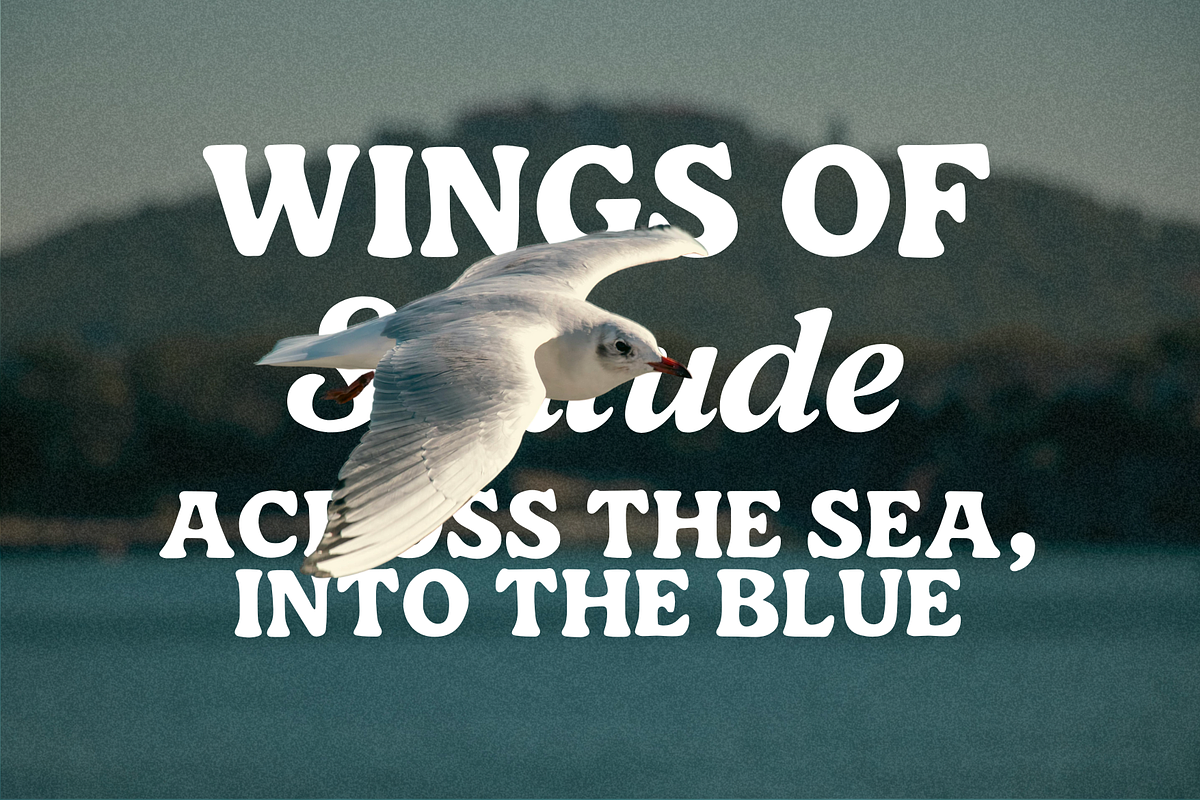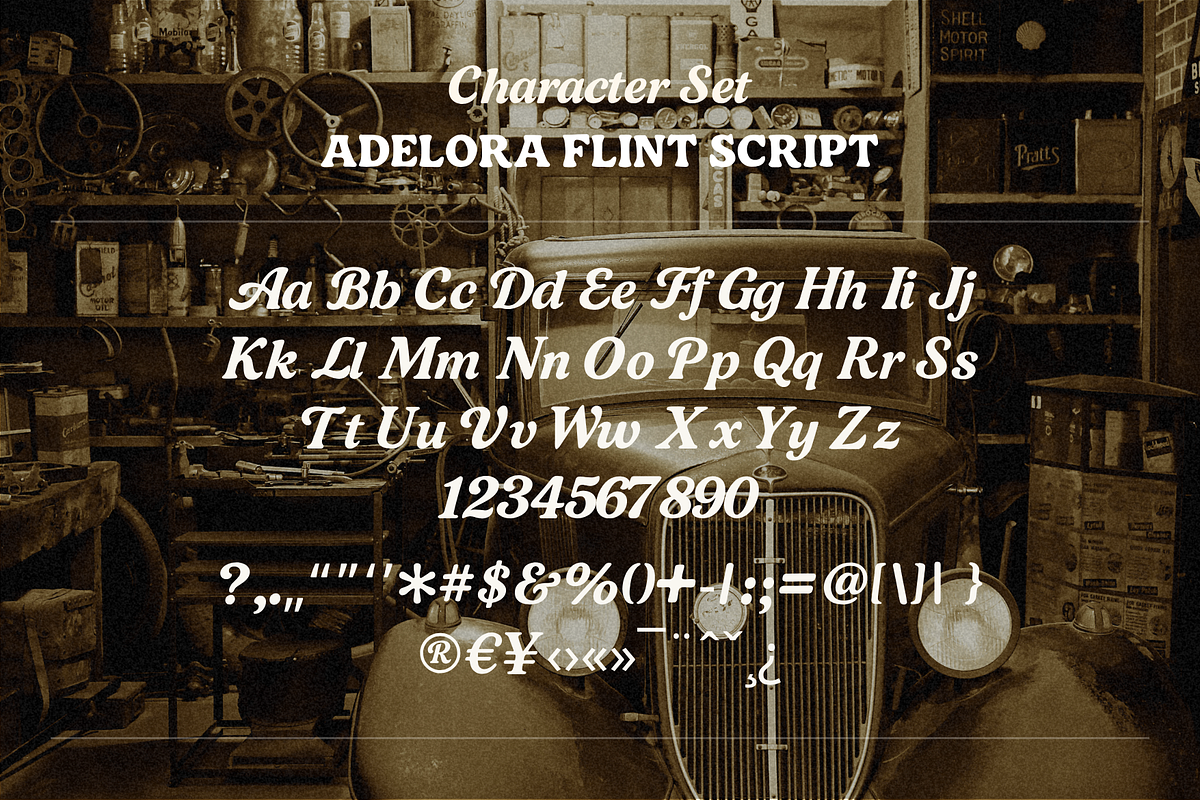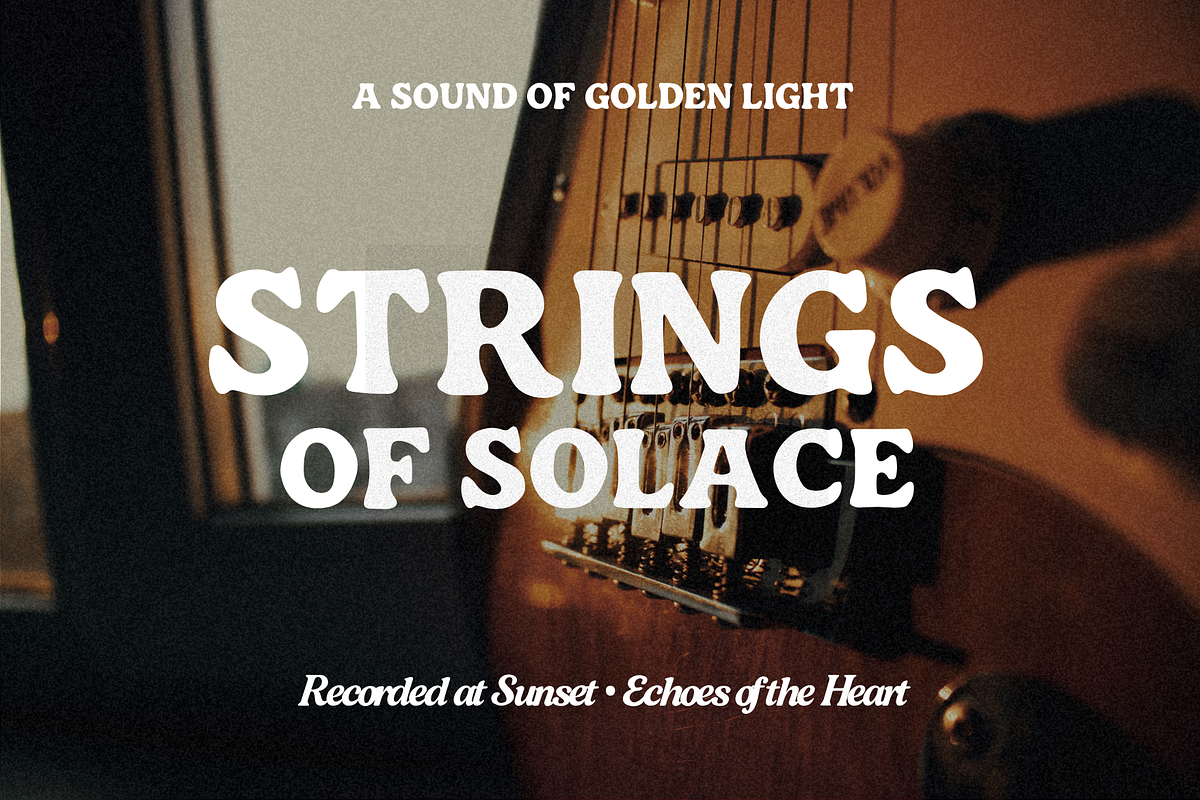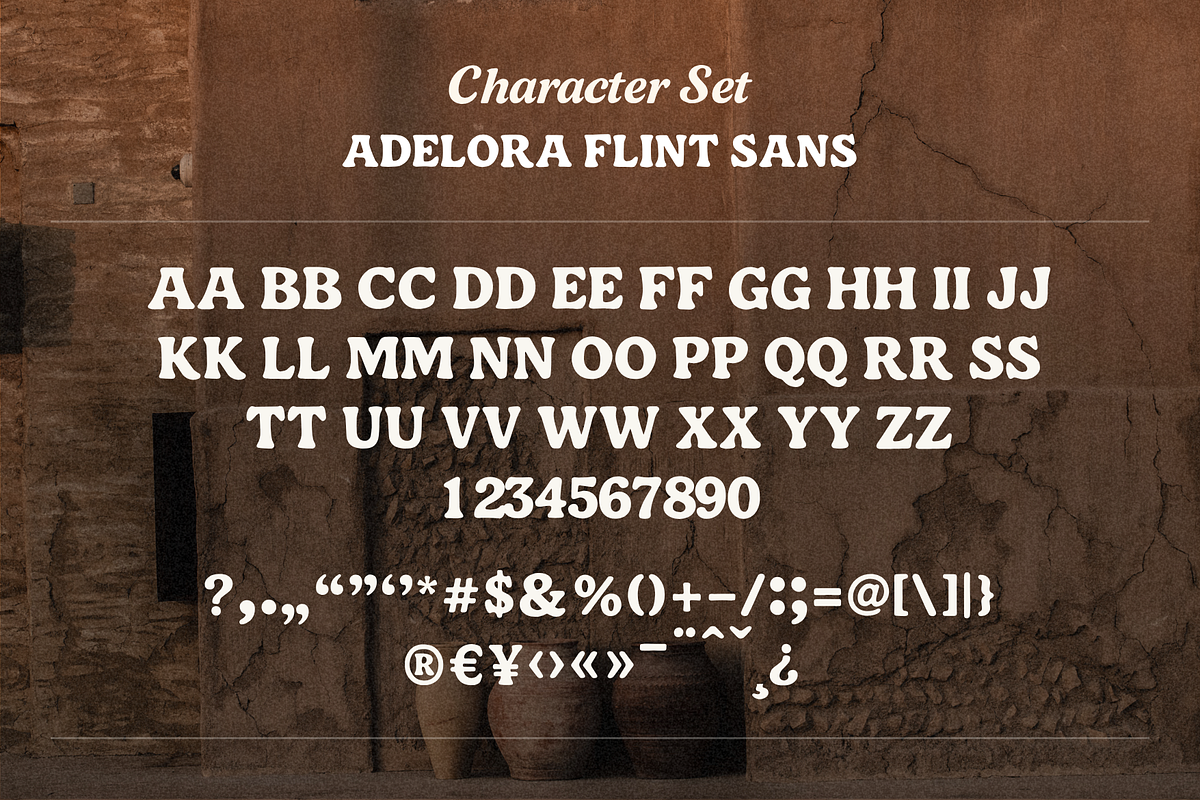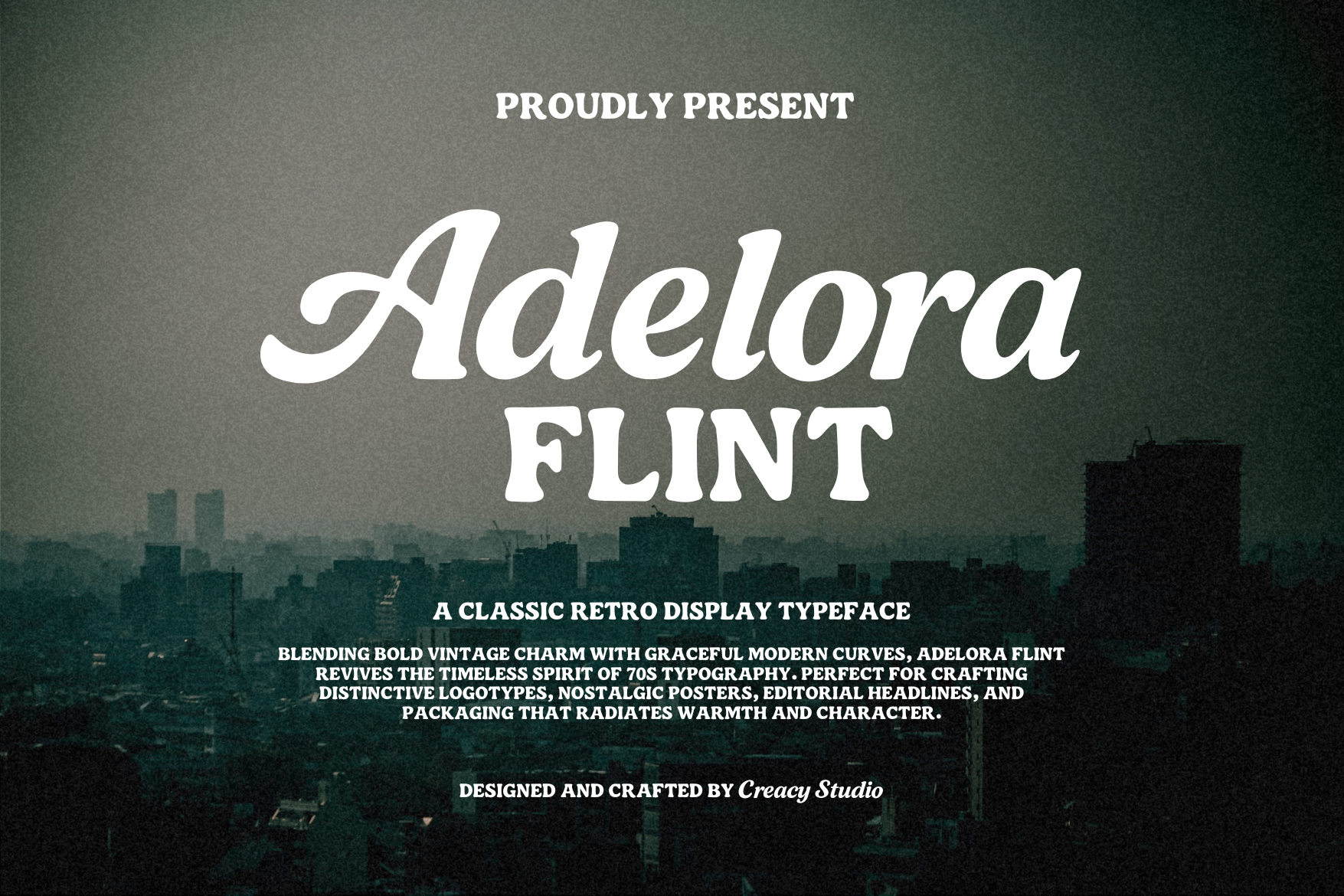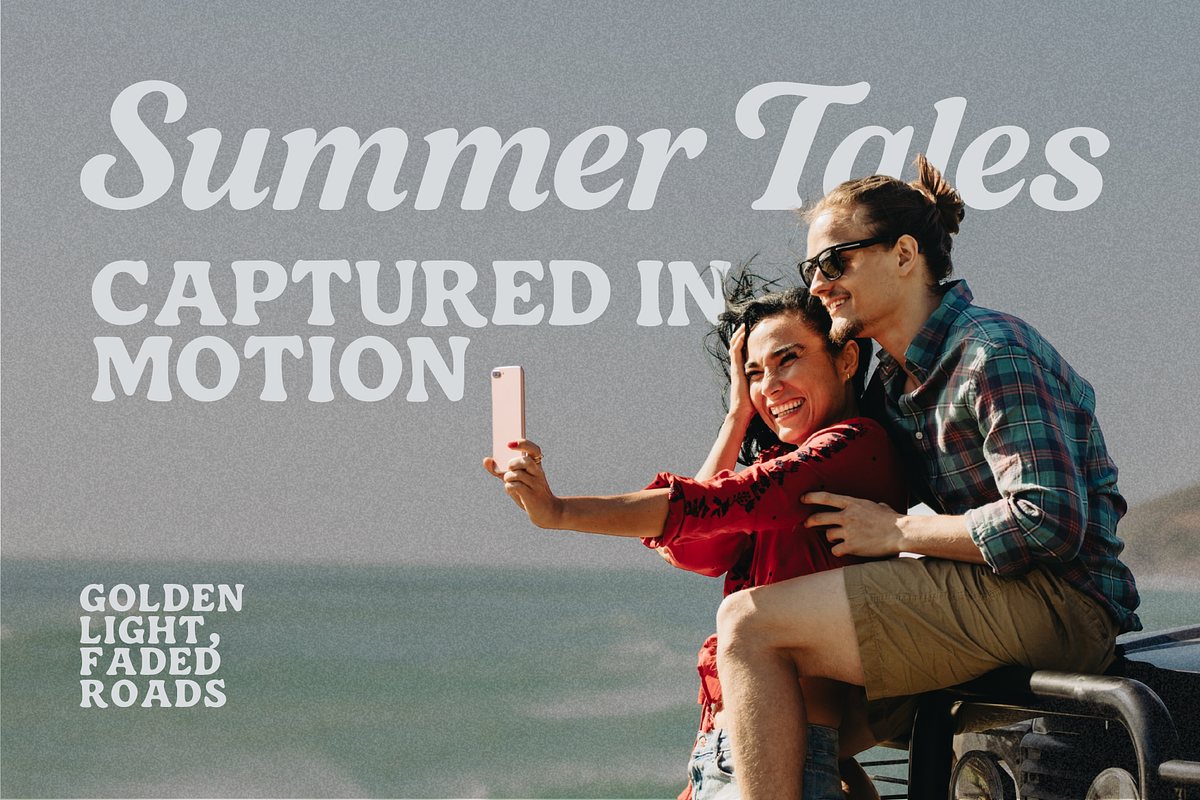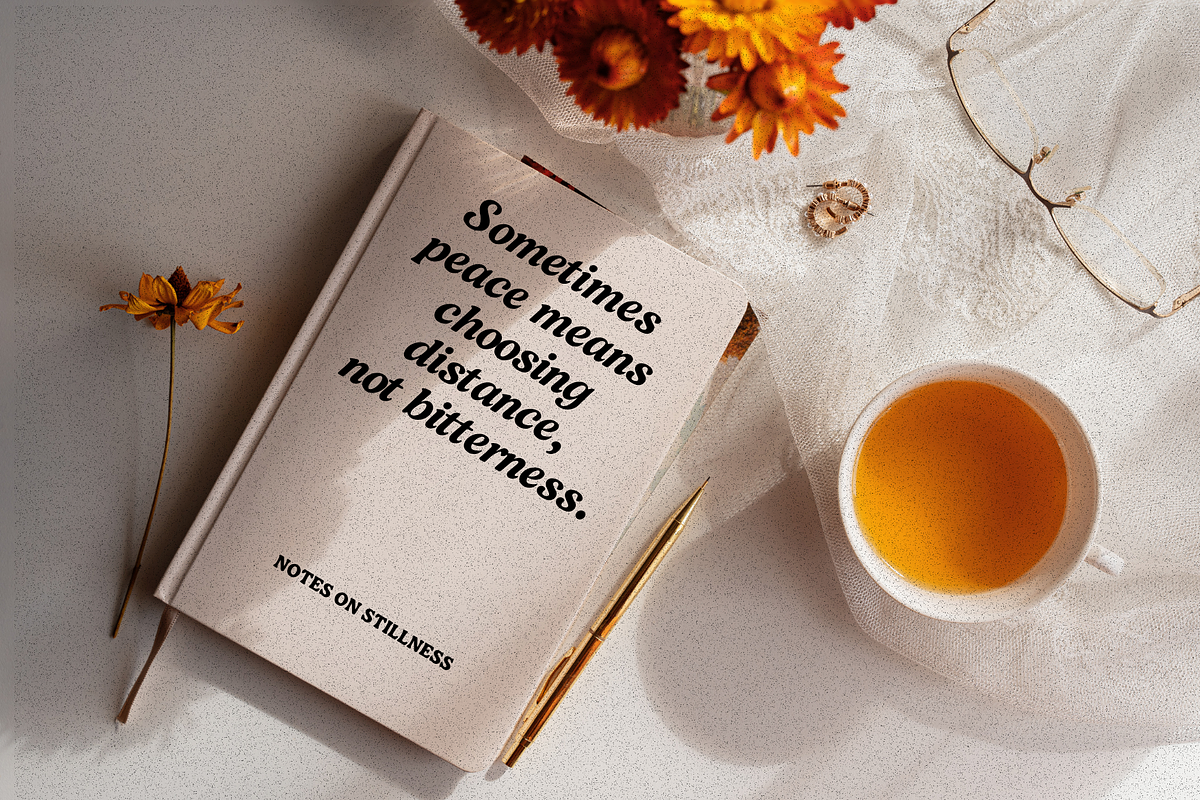
Adelora Flint – Retro Display Font
Adelora Flint — A Classic Retro Display Typeface
Blending nostalgic warmth with modern charm. Adelora Flint revives the timeless spirit of 70s typography with a graceful yet bold personality. Each curve and contour is carefully crafted to exude both vintage sophistication and modern versatility, making it perfect for brands that seek to stand out with elegance and nostalgia.
- Adelora Flint Script – A flowing retro script with soft swashes and expressive letterforms.
- Adelora Flint Sans – A bold serifless companion, perfect for strong headlines and logos.
Adelora Flint is ideal for crafting:
- Editorial headlines & magazine titles
- Vintage-inspired logotypes
- Travel journals, lifestyle blogs, and branding kits
- Album covers, film posters, and packaging with nostalgic flair
Style Inspiration:
Think of golden sunlight, faded road trips, and timeless stories written in summer air — Adelora Flint captures that poetic retro essence, transforming any project into a piece of vintage storytelling.
Designed and crafted by Creacy Studio Bring your words to life with timeless grace.